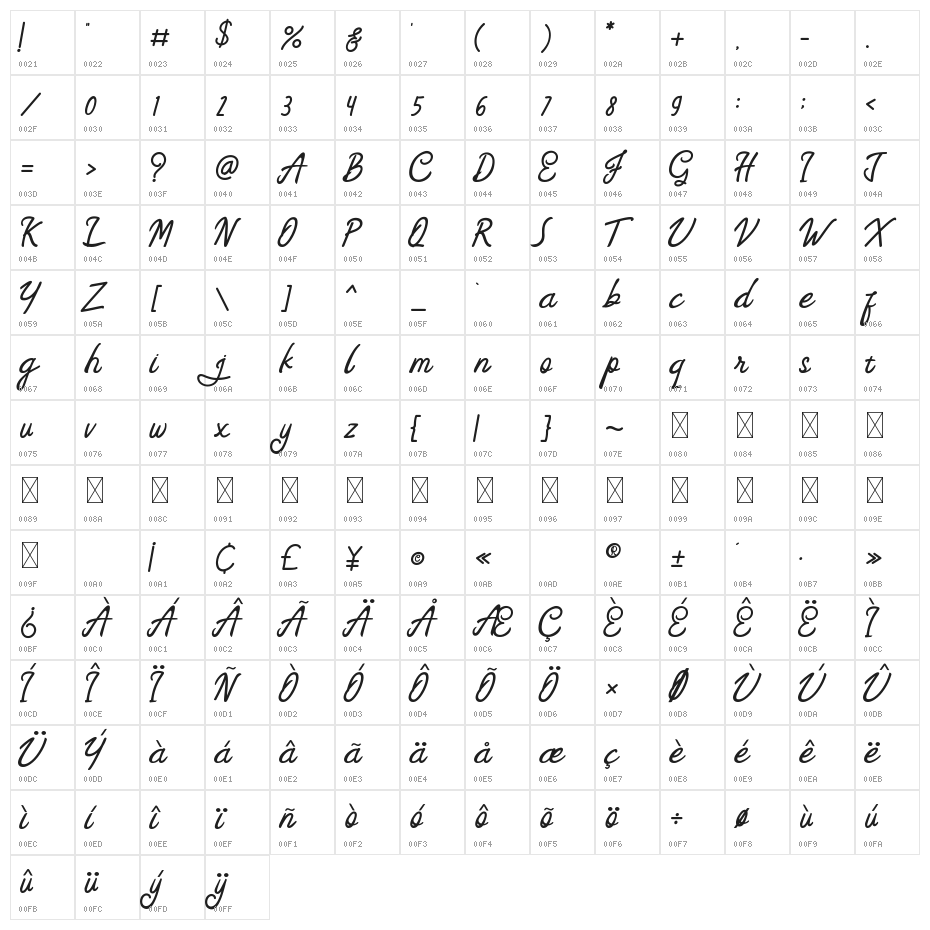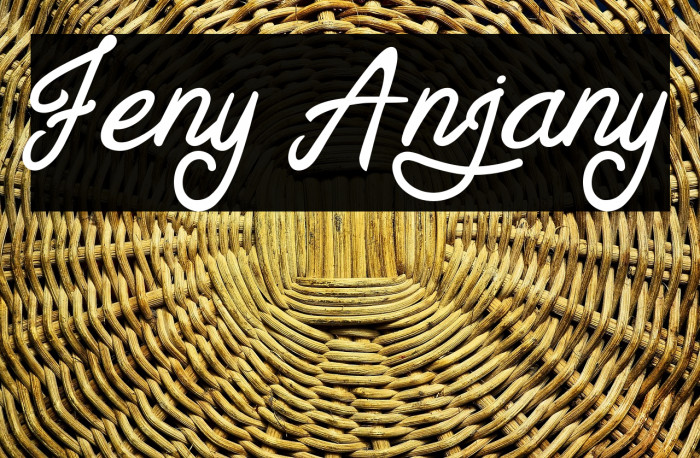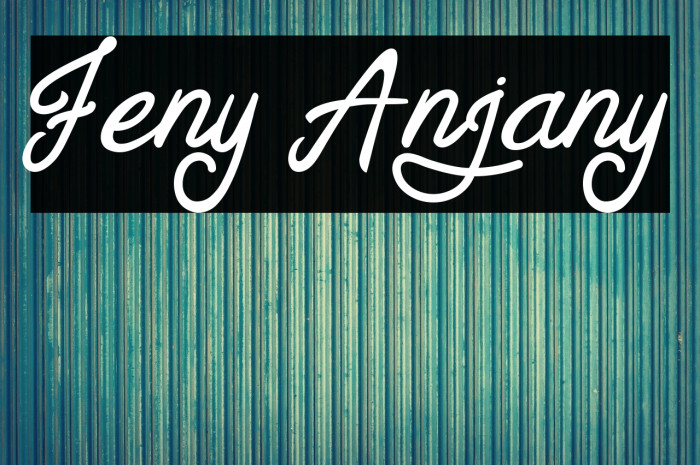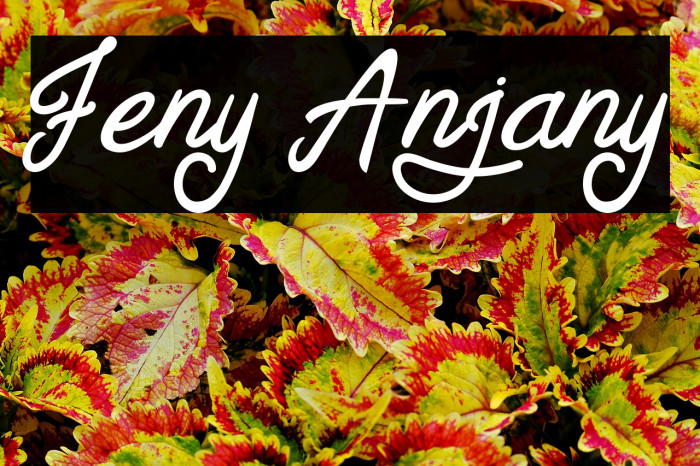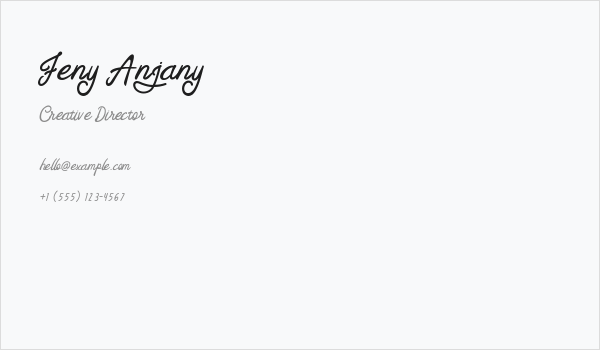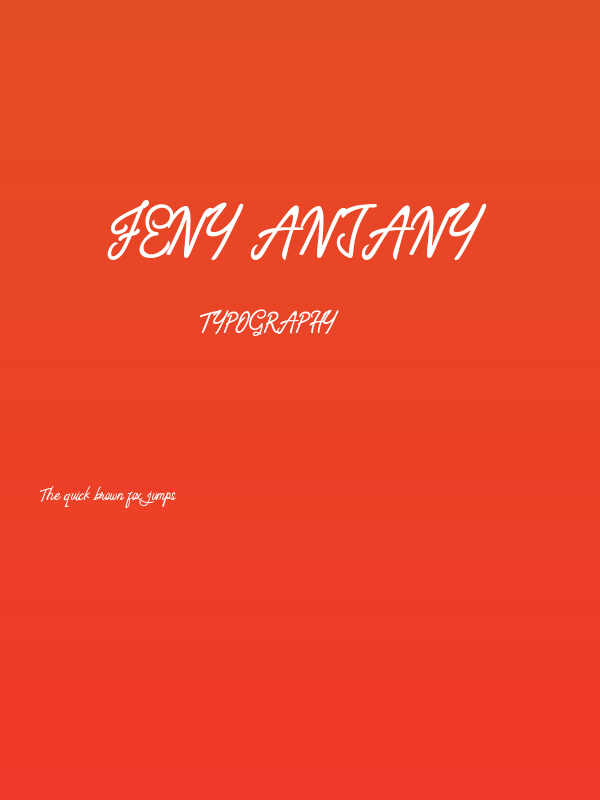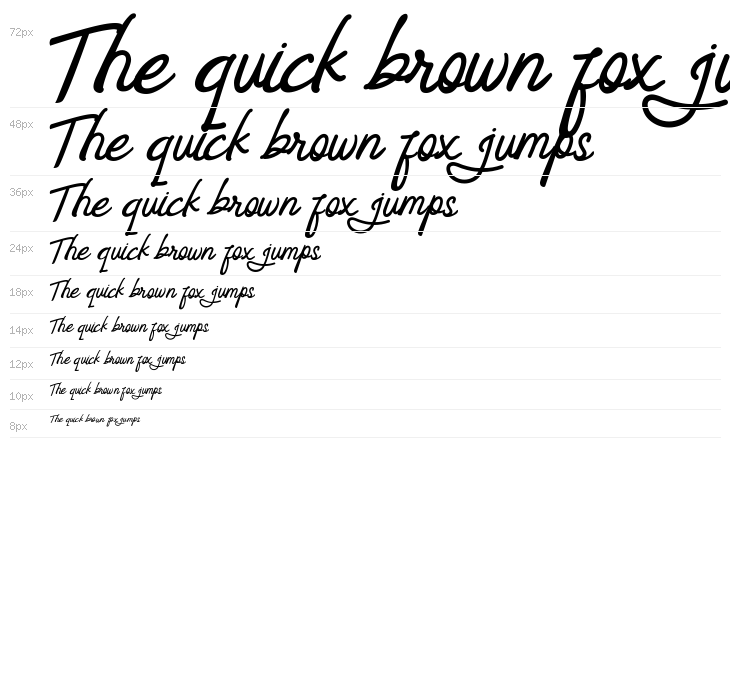
Feny Anjany Font
Feny Anjany Description
This font features a dynamic and flowing script style, characterized by its elegant, cursive letterforms. The uppercase letters are bold and sweeping, with a sense of movement and flair, while the lowercase letters maintain a consistent rhythm and smooth connections. The numerals are clear and legible, matching the overall cursive style. Special characters are thoughtfully designed to complement the alphabet, ensuring a cohesive look. The font's design is both stylish and versatile, making it suitable for a variety of creative applications.